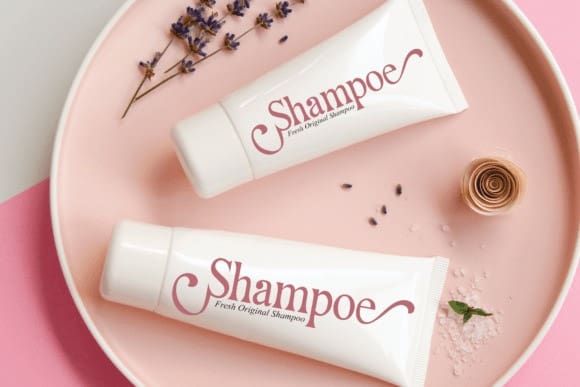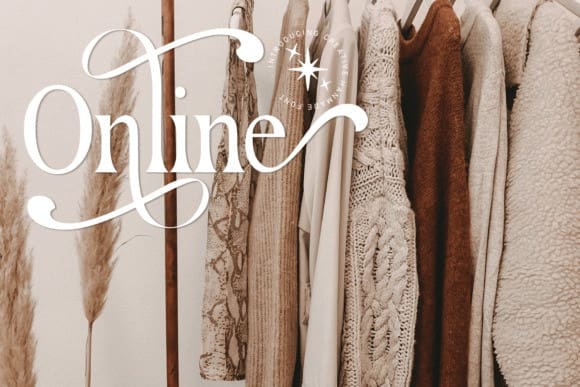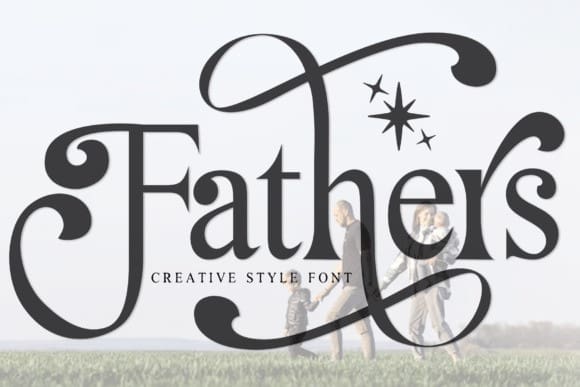
Fathers Font
Fathers Font is a beautiful and elegant script signature font. Its luxurious letters are perfect for wall displays, wedding invitations, social media post, logos, advertisements, product packaging, product designs, labels, photography, watermarks, invitations, stationery, and any project that requires a sophisticated touch.